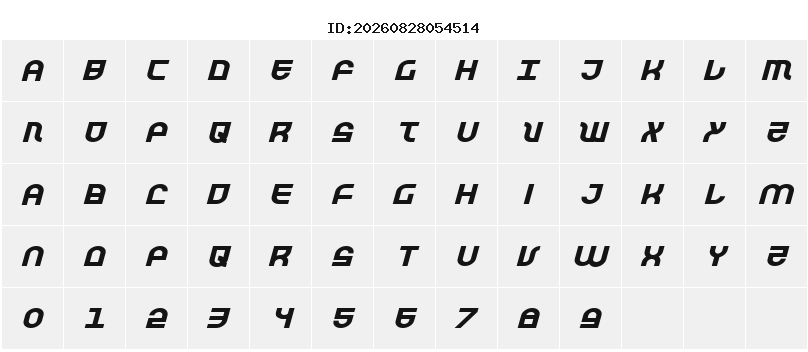
Trek Trooper Expanded Italic Preview
• Font Name: Trek Trooper Expanded Italic
• Font Style: Expanded Italic
• Font ID: Trek Trooper Expanded Italic: 2008
• Full Font Name: Trek Trooper Expanded Italic
• PostScript Name: TrekTrooperExpandedItalic
About Trek Trooper Expanded Italic.ttf
Trek Trooper Expanded Italic.ttf is a modern, elegant sans-serif font designed for ultimate readability and visual harmony. Perfect for branding, headlines, web design, and print materials.